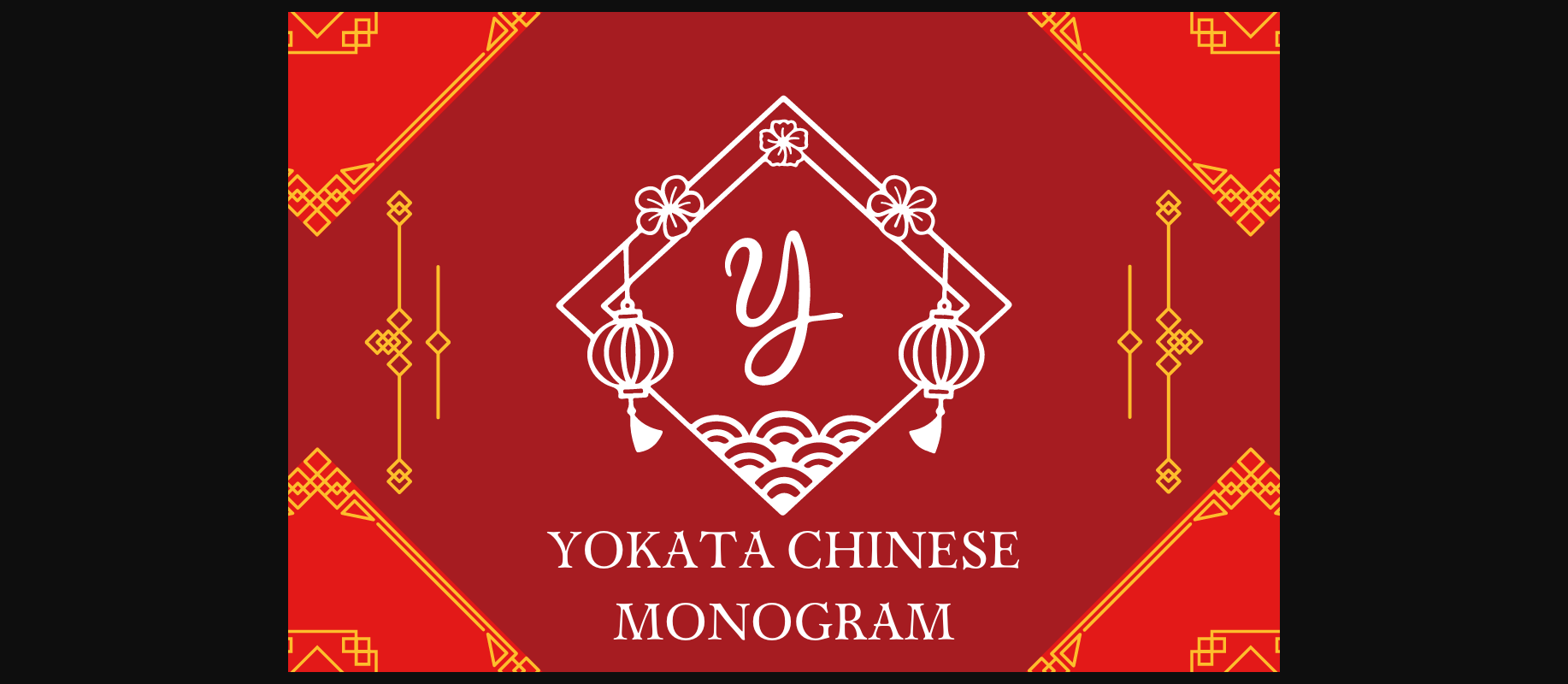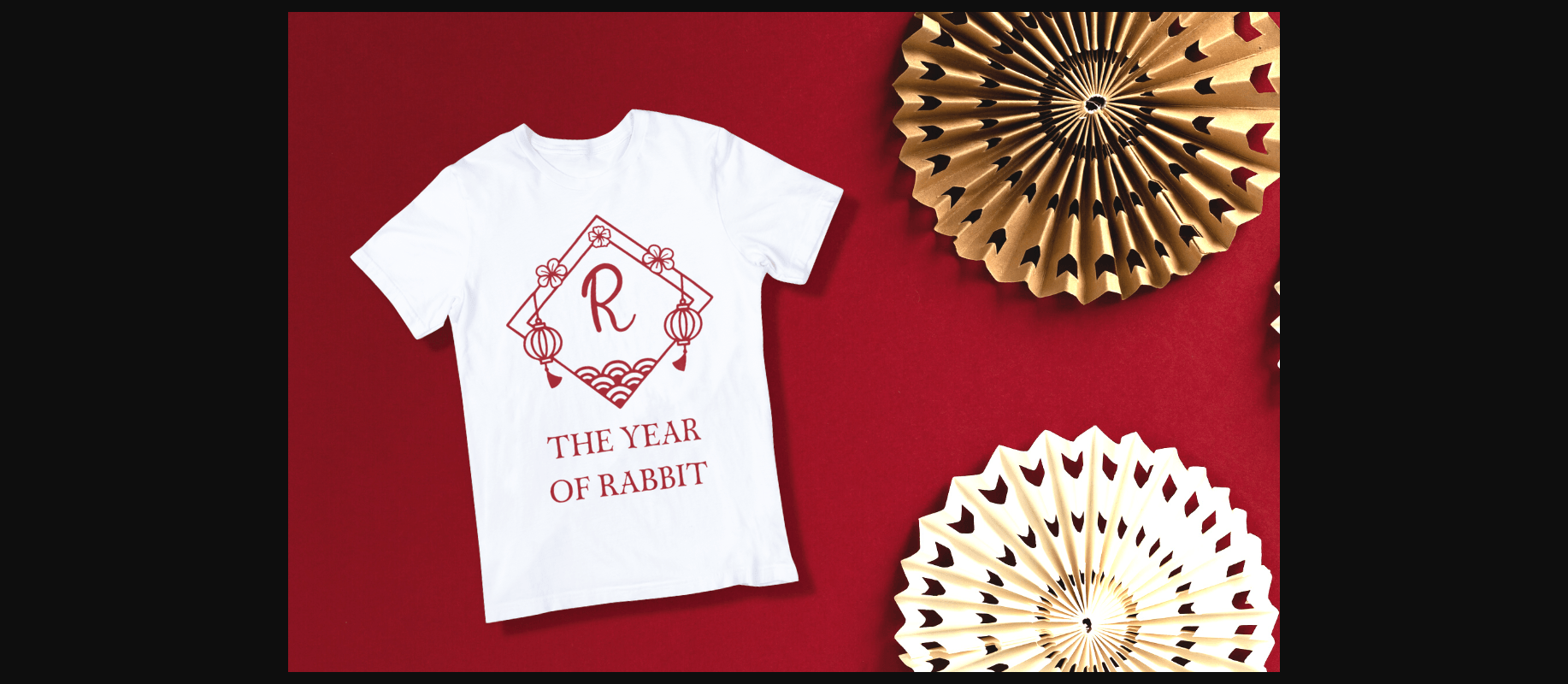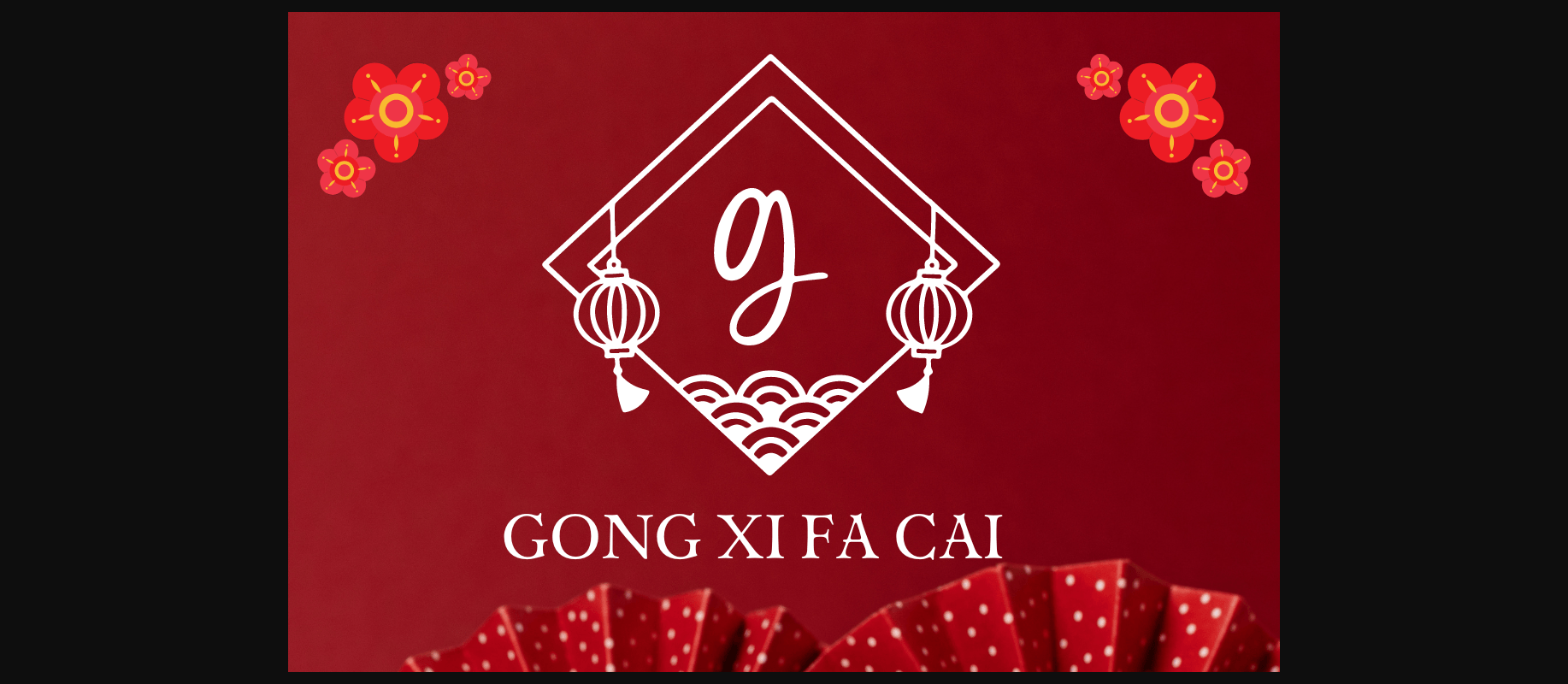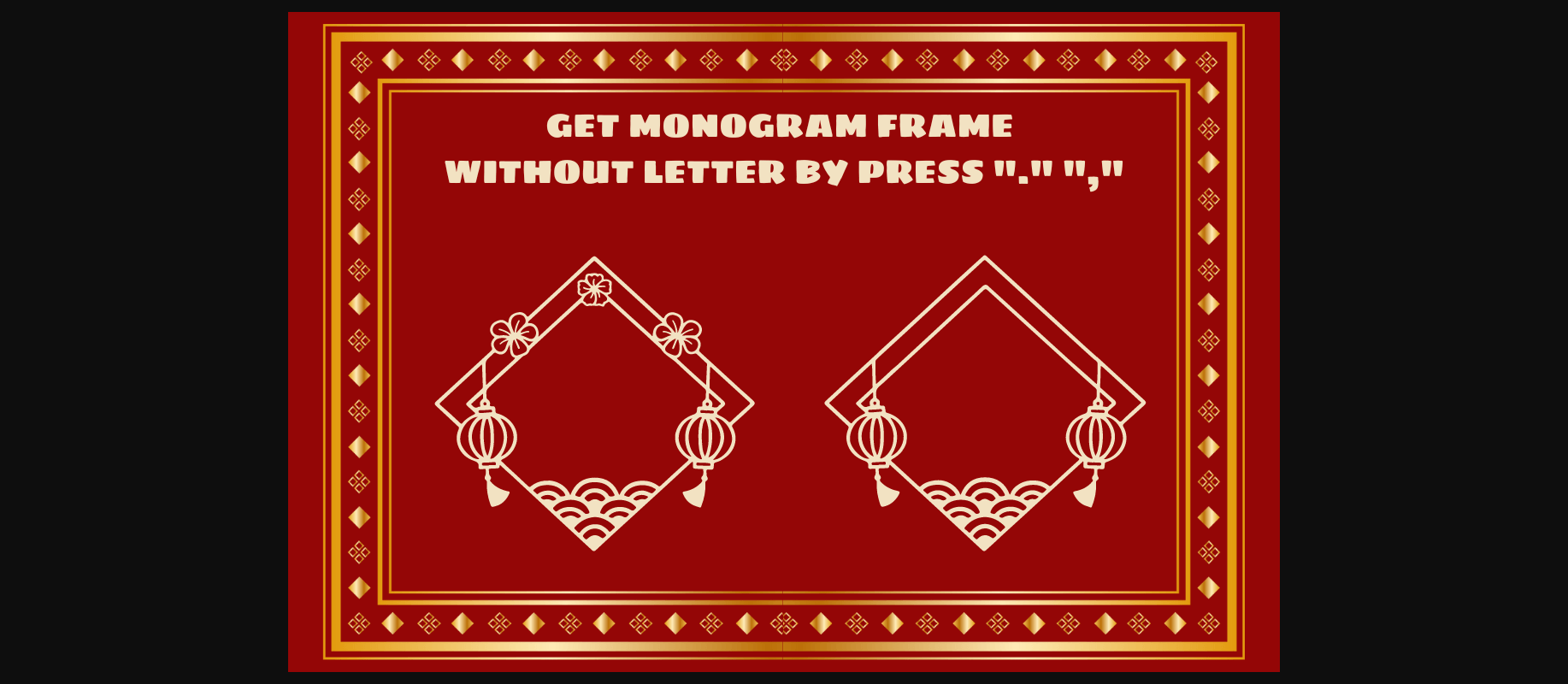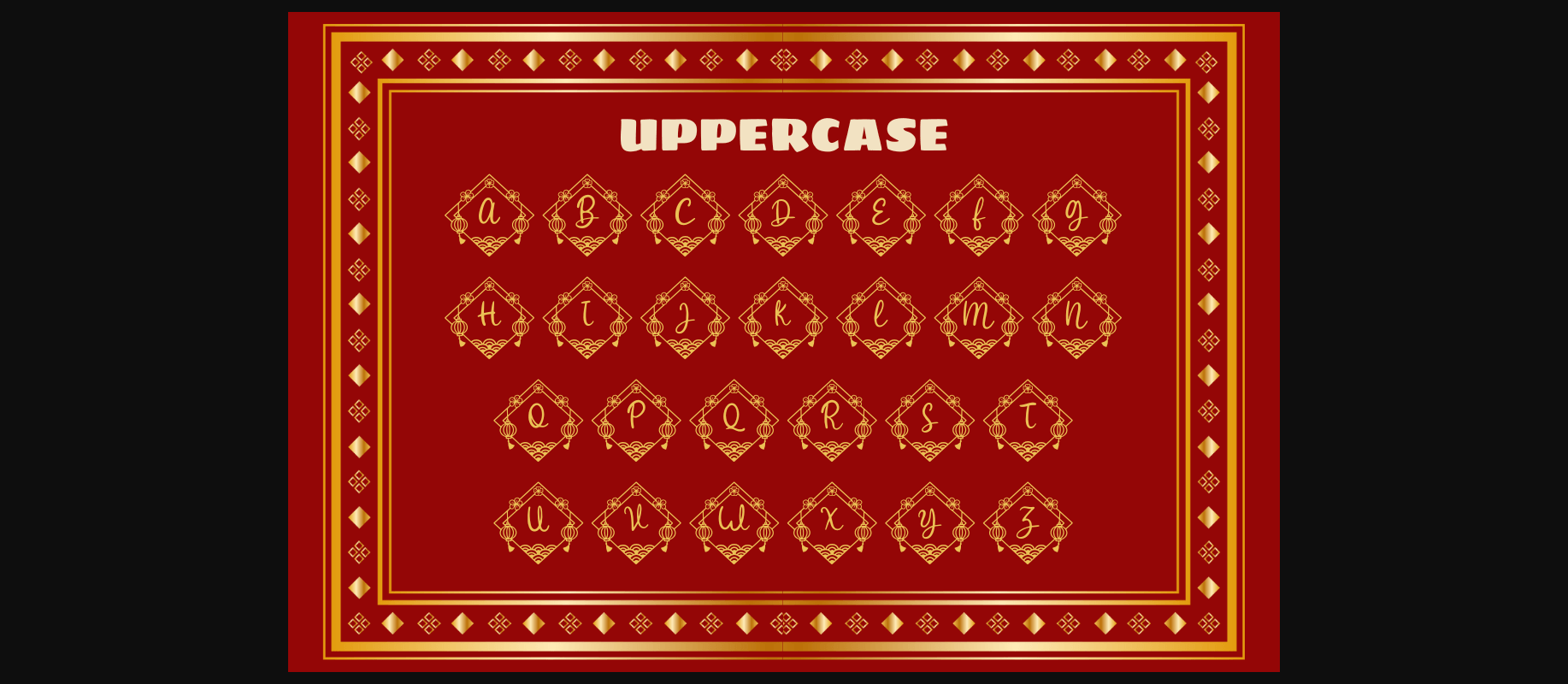
Yokata Chinese Monogram Font
Yokata Chinese Monogram is a rhombus-shaped decorative font.
This font can be used to make Chinese new year themed gifts, including textiles, and gifts for kids, and is a perfect gift for a new homeowner, a Chinese family, or anyone with a love of monograms.
Comes in 2 styles.
Just simply change between uppercase and lowercase to see the different styles!